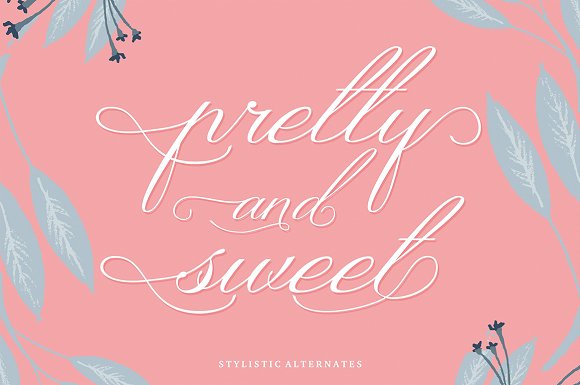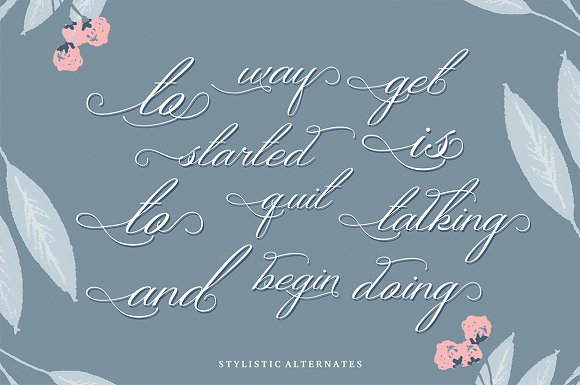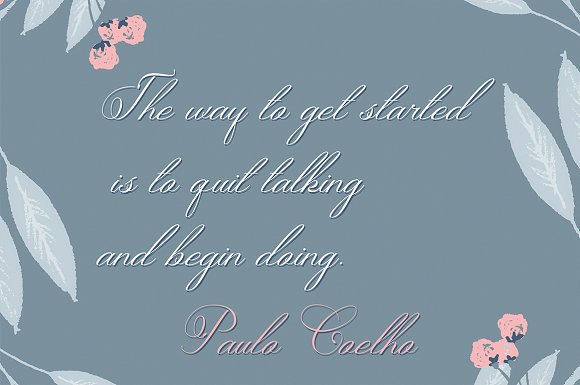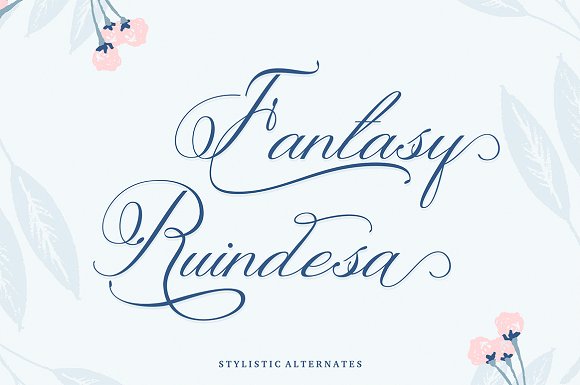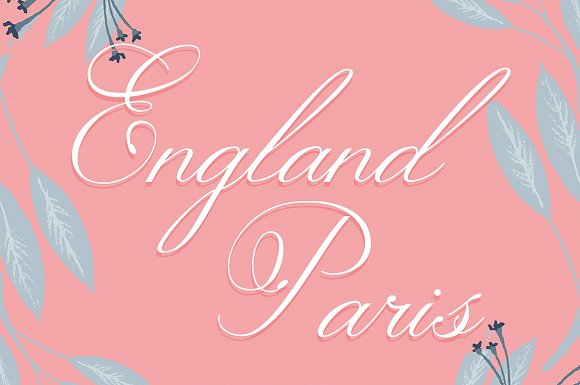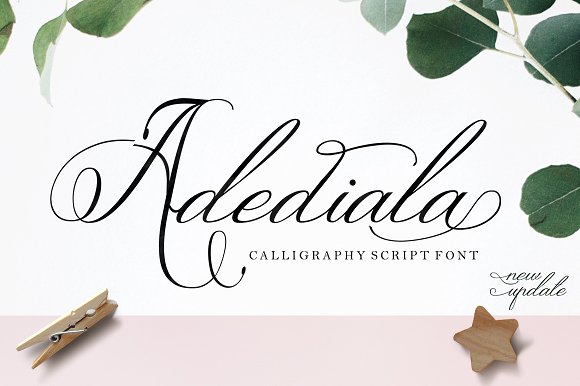
Discover the Unique Charm of Adediala Font: A Handwritten Gem by Area Type
In the vast and ever-evolving world of typography, the quest for the perfect font can be a daunting task. Whether you’re a designer, a crafter, or simply someone with a passion for lettering, finding a typeface that captures the essence of your project is crucial. Among the myriad of fonts available, one that stands out for its distinctive and personal touch is the Adediala Font. Created by Area Type, Adediala is a beautiful handwritten font that brings a unique charm to any design or craft project.
What is Adediala Font?
Adediala is a meticulously crafted handwritten font by Area Type, a foundry known for its dedication to producing high-quality typefaces. The Adediala Font is designed to mimic the natural flow and imperfections of handwriting, making it incredibly versatile and relatable. Its letters are carefully drawn to convey a sense of warmth, friendliness, and approachability, making it an ideal choice for a wide range of applications, from digital content to print materials.
Key Features of Adediala Font
So, what makes Adediala stand out from the crowd? Here are some of its key features:
- Unique Handwritten Style: Adediala boasts a distinctive handwritten style that adds a personal touch to any project. Its letters are fluid, with subtle variations in line width and height, giving it a natural and organic feel.
- Extensive Character Set: The font comes with an extensive character set, including uppercase and lowercase letters, numbers, punctuation marks, and special characters. This ensures that you have everything you need to create comprehensive and detailed content.
- High Versatility: Adediala’s versatility makes it suitable for a variety of projects. Whether you’re working on a blog, a branding campaign, an invitation, or a craft project, this font can adapt to your needs, adding a touch of elegance and sophistication.
- Easy to Read: Despite its decorative nature, Adediala is remarkably legible. This makes it not only a great choice for headlines and titles but also for body text, ensuring that your content is accessible and enjoyable to read.
Who Can Benefit from Adediala Font?
The Adediala Font, with its unique charm and versatility, can benefit a wide range of users:
- Graphic Designers: Looking for a font that can add a personal touch to branding projects, advertisements, or marketing materials? Adediala is an excellent choice.
- Digital Content Creators: Bloggers, YouTubers, and social media influencers can use Adediala to give their content a distinctive and recognizable style.
- Crafters and Makers: For crafters working on DIY projects, invitations, or packaging, Adediala offers a beautiful way to add a handmade feel to their creations.
- Web Developers: Adding a personal touch to website design can make a significant difference. Adediala can be used to create visually appealing headings, banners, or even website content.
How to Use Adediala Font Effectively
To make the most of Adediala, consider the following tips:
- Pair it with Other Fonts: Combine Adediala with simpler fonts for body text to create a balanced and visually appealing design.
- Experiment with Sizes: Use Adediala in various sizes to create a hierarchy of information, making your content more engaging and easy to navigate.
- Play with Colors: While Adediala looks great in black, experimenting with colors can add another layer of personality to your design.
| Font Name | Adediala Font |
| Author | Area Type |
The Adediala Font by Area Type is a remarkable addition to the world of typography. Its unique handwritten style, extensive character set, and high versatility make it an invaluable resource for designers, crafters, and content creators. Whether you’re aiming to add a personal touch to your digital content, create memorable branding, or enhance your craft projects, Adediala is sure to exceed your expectations. With this font, the possibilities are endless, and the potential for creating something truly special is at your fingertips.